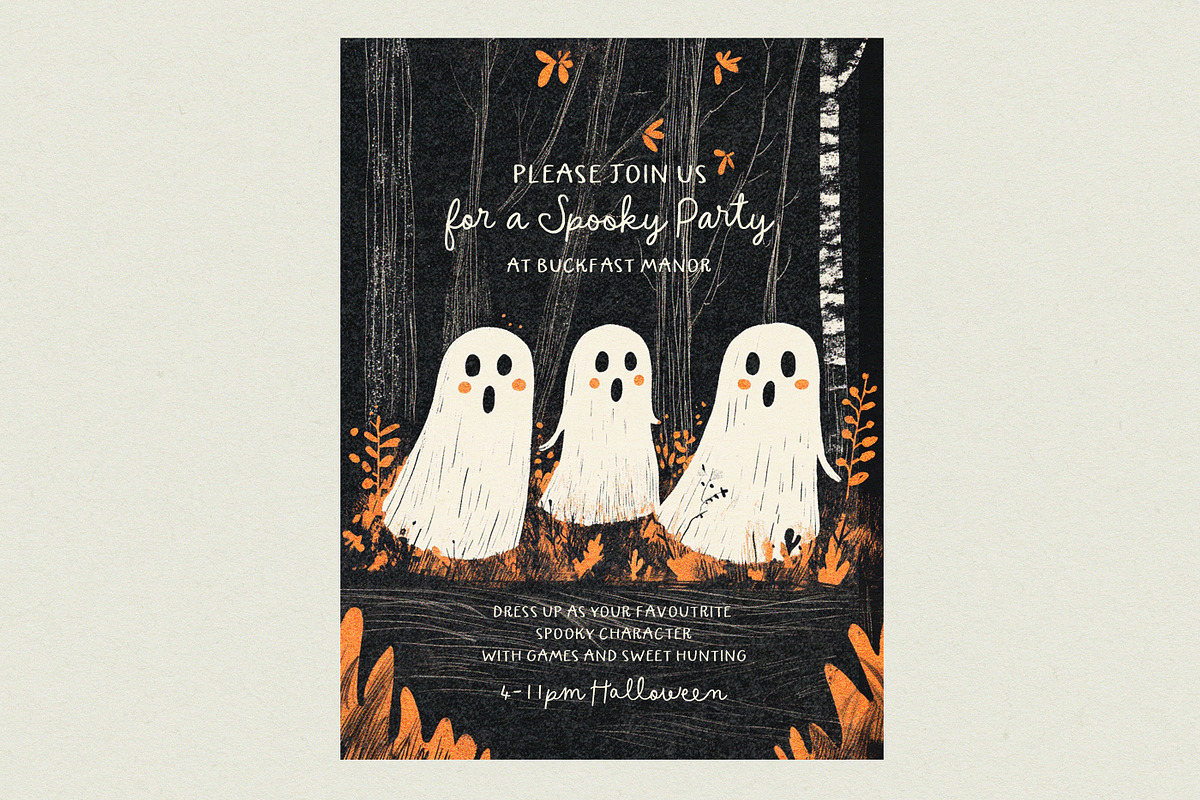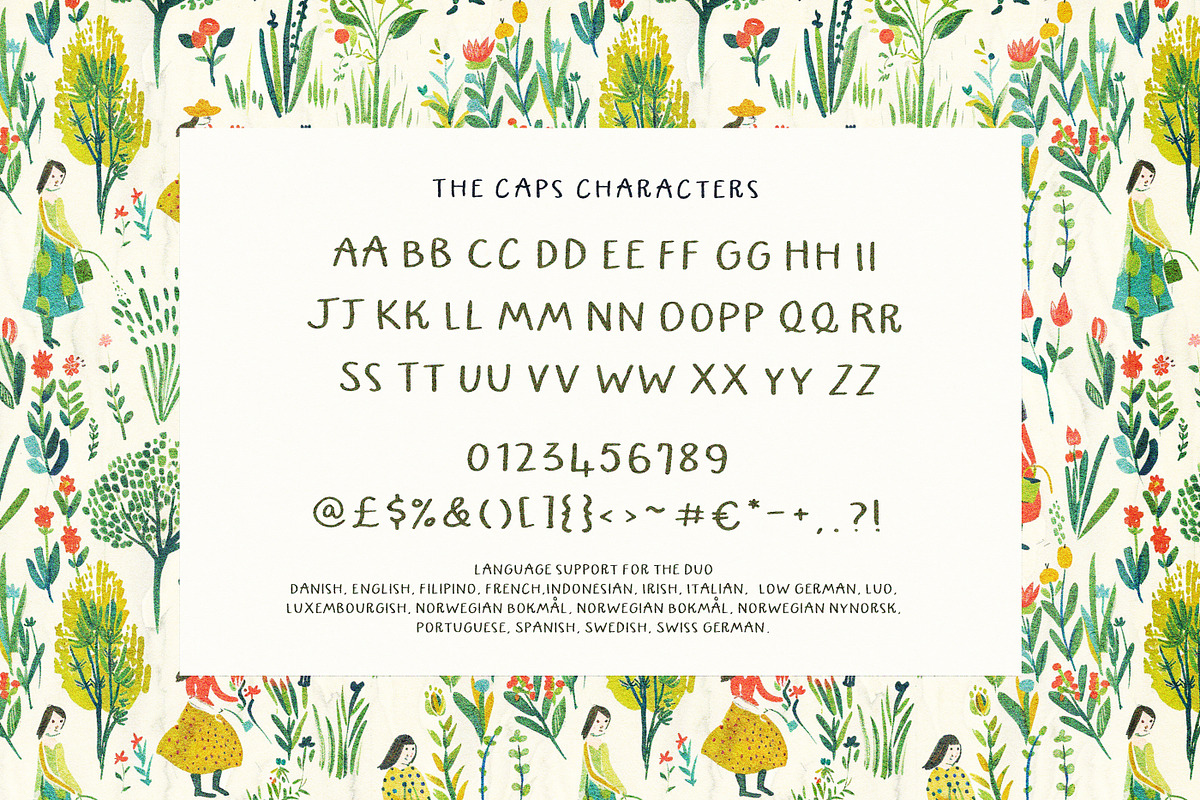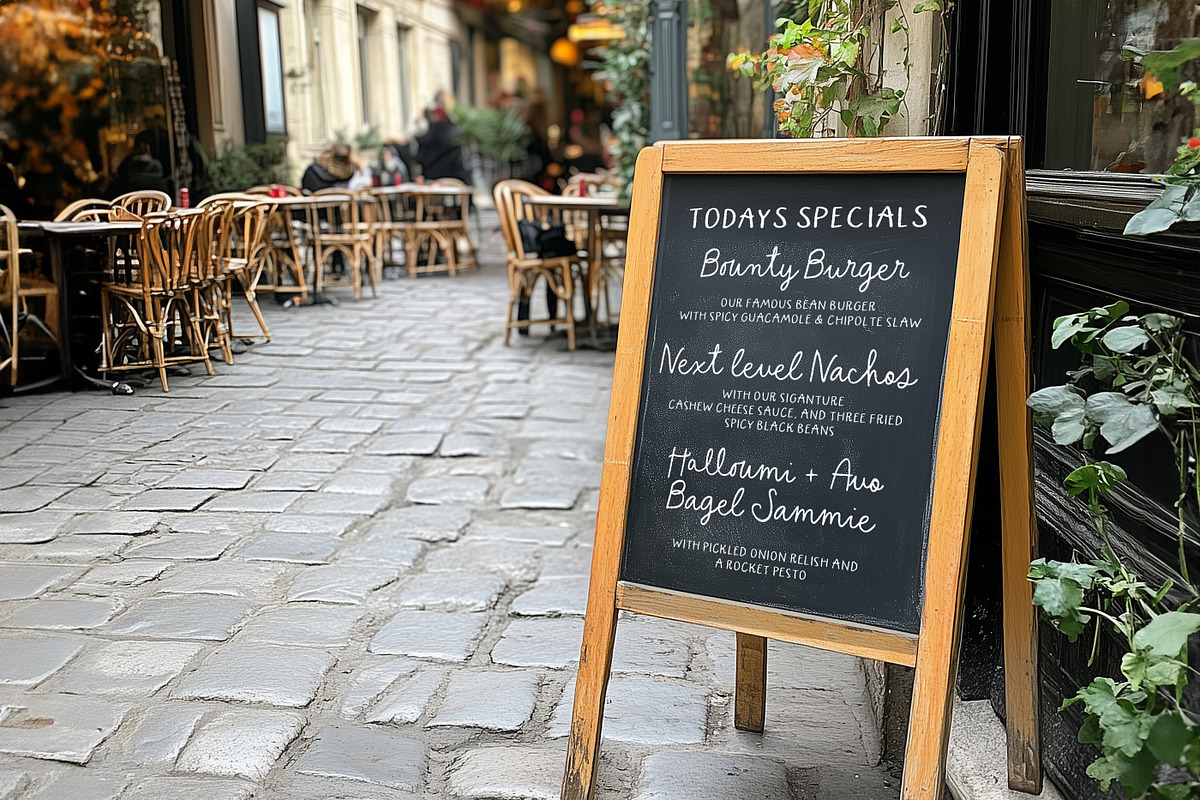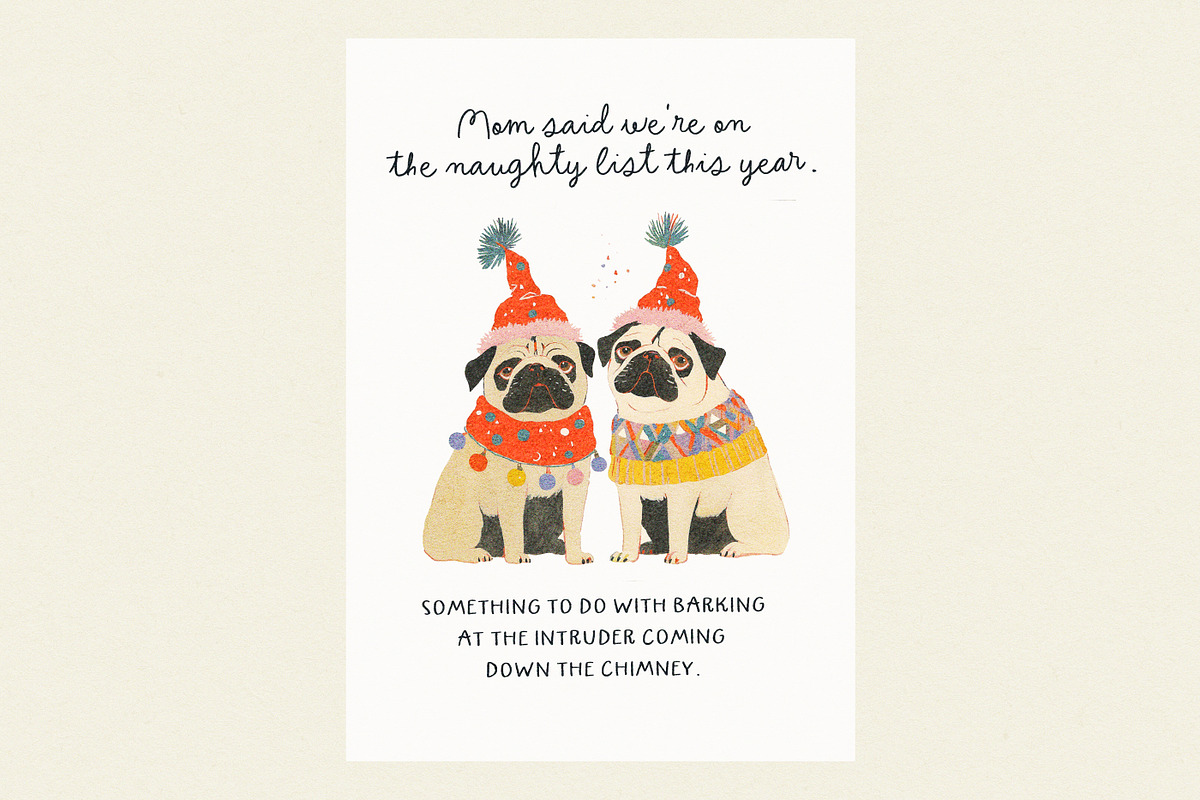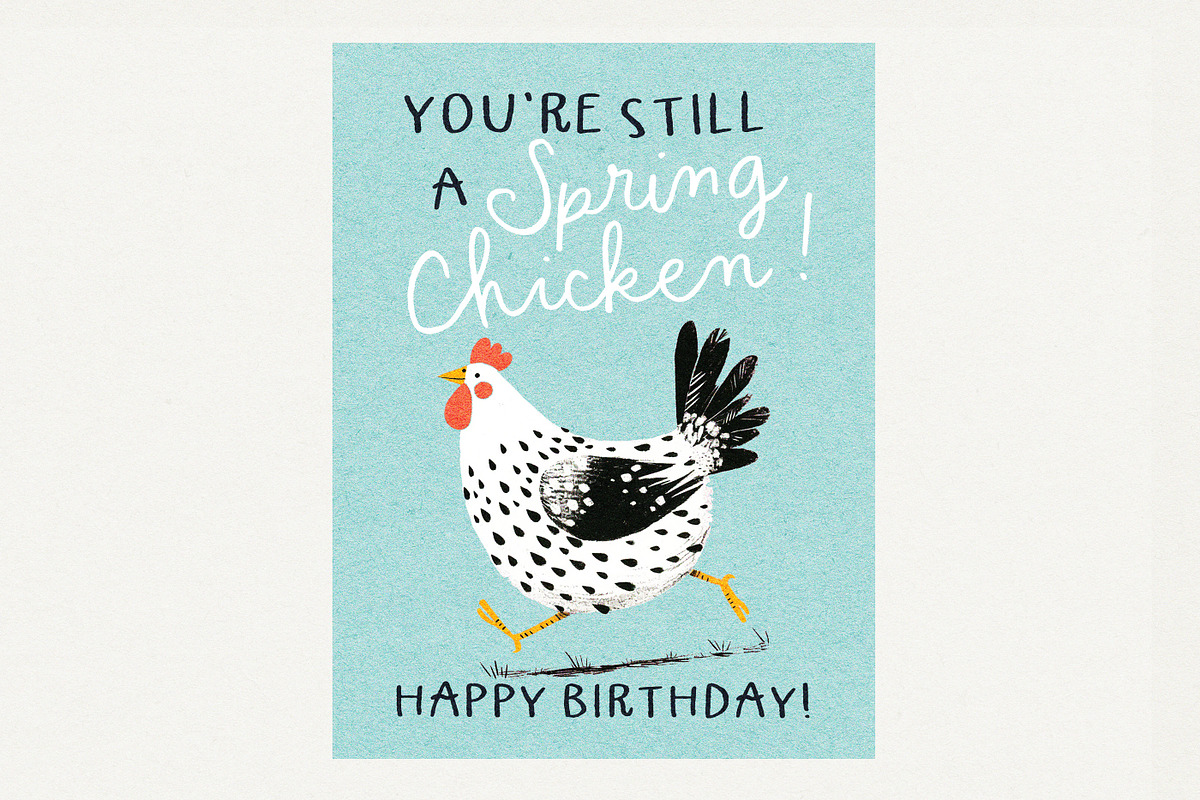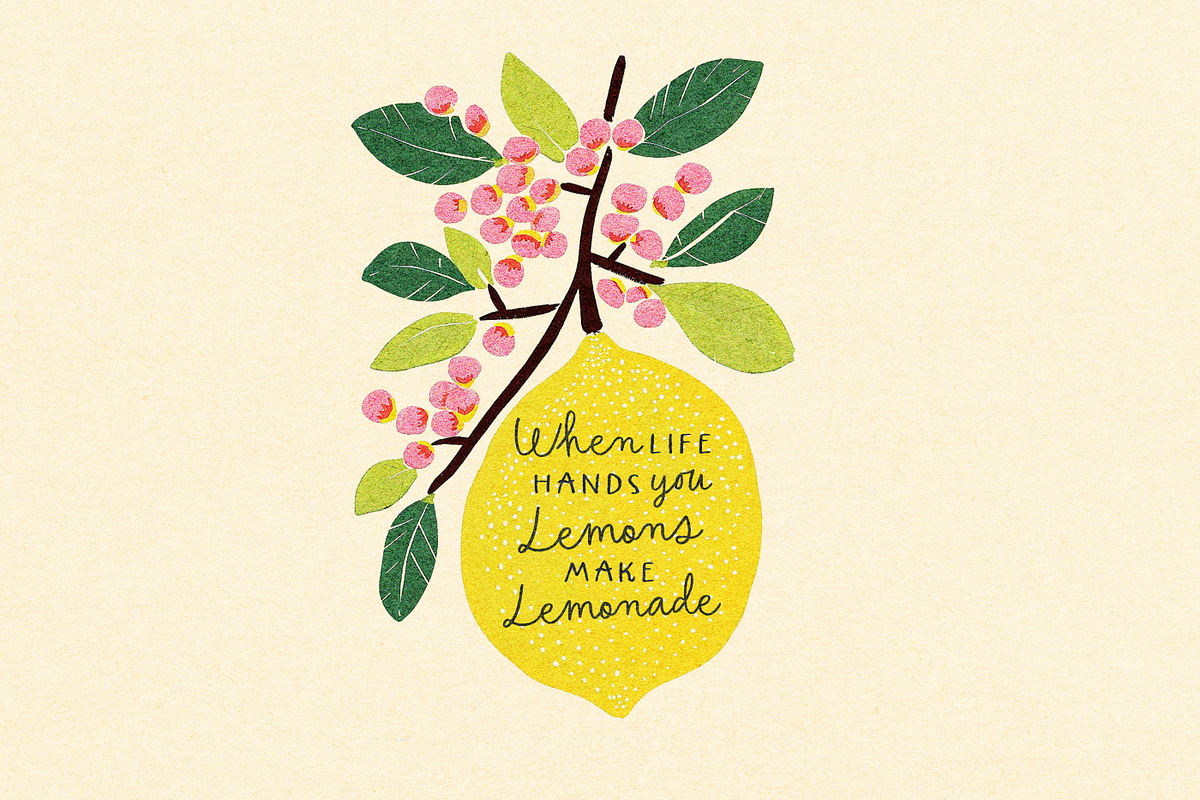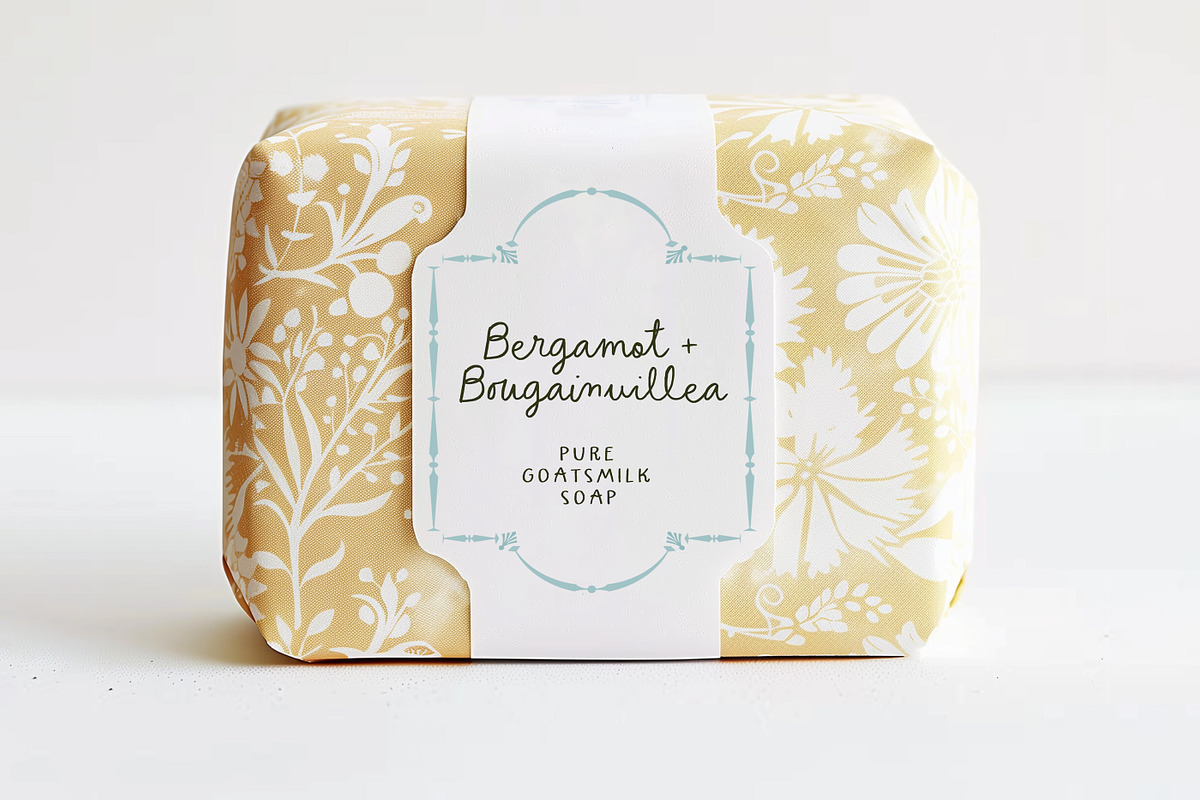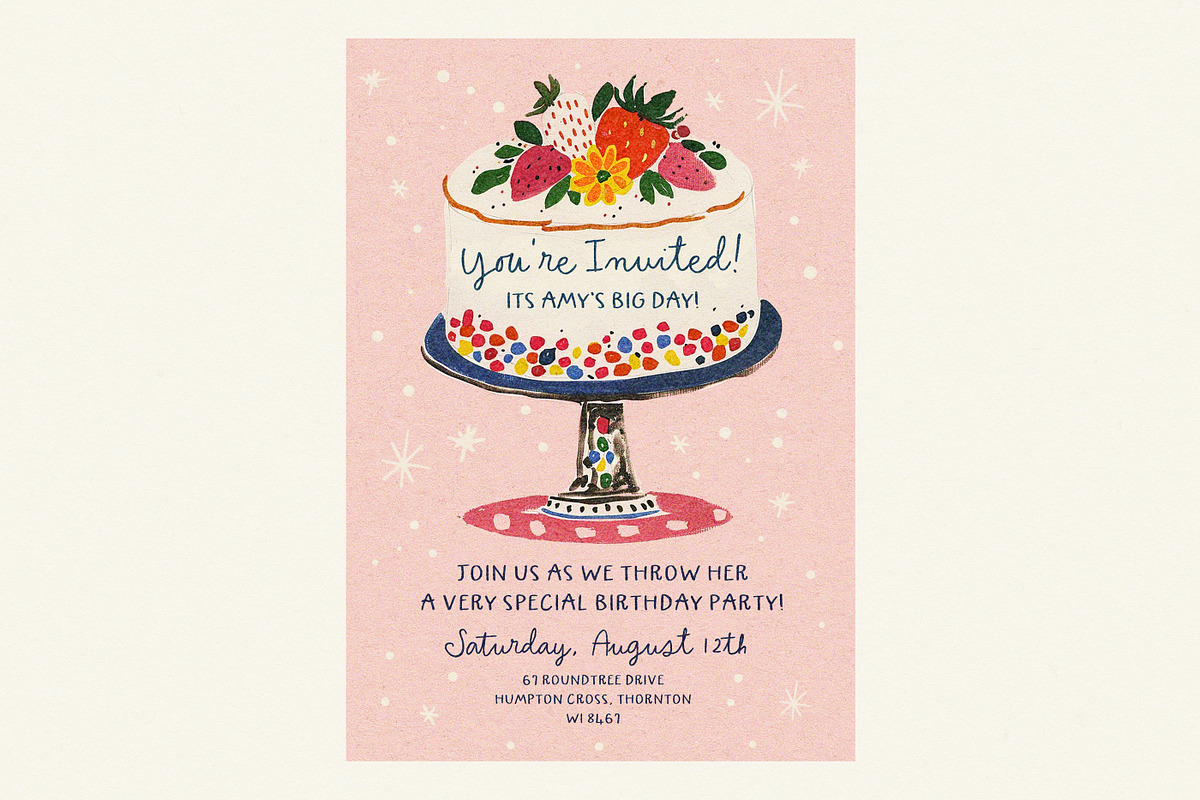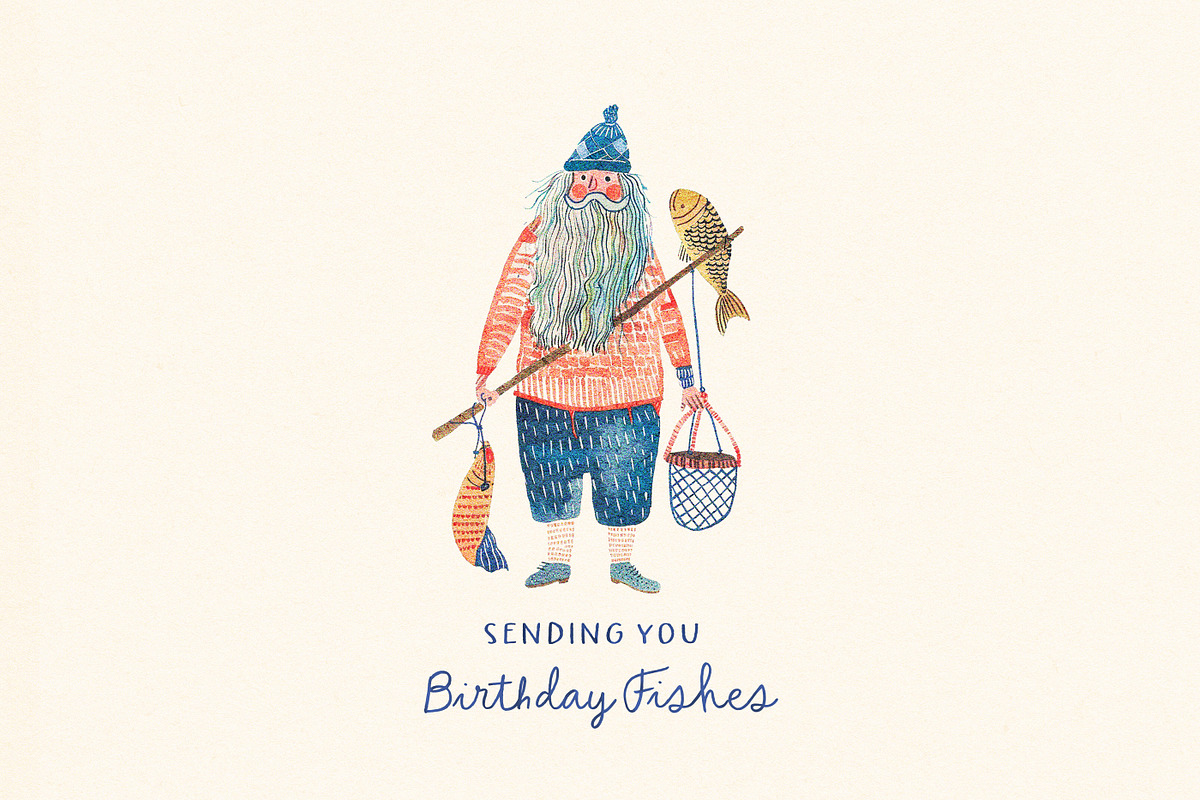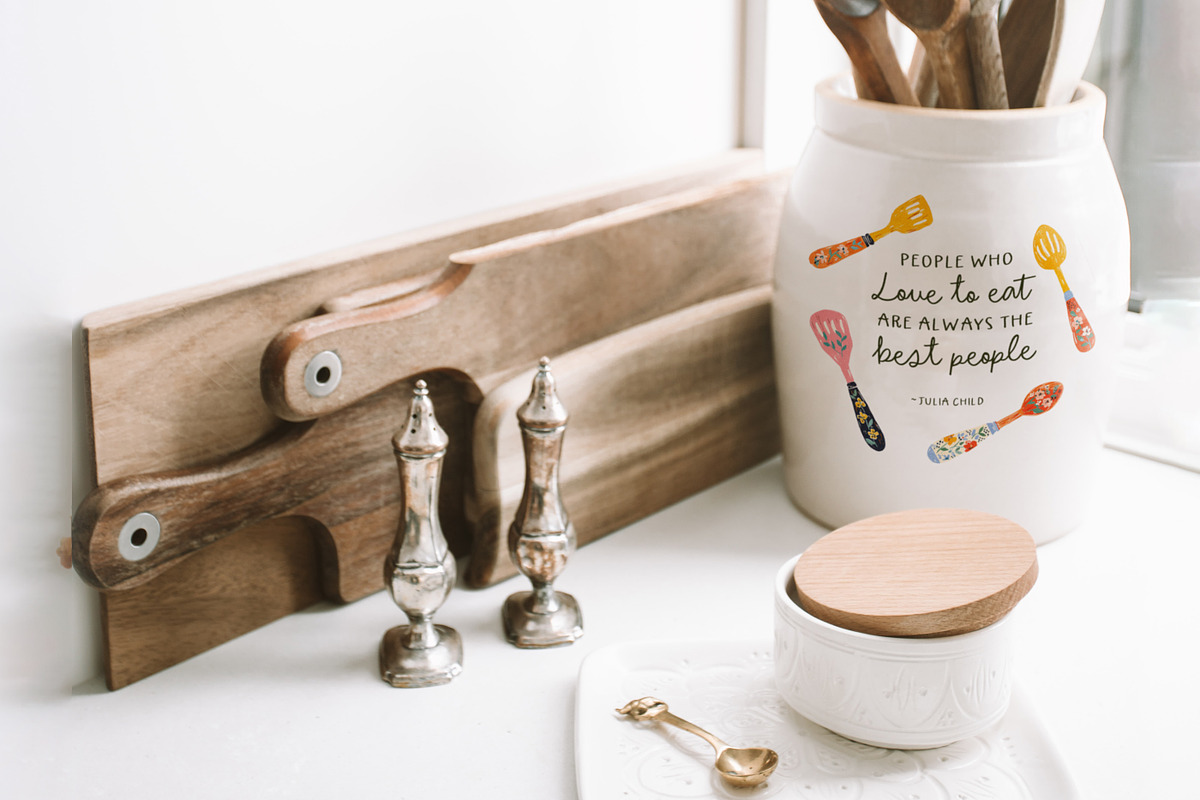
Sweet by Nature Font Duo
Say hello to 'Sweet by Nature'! A whimsical little font duo, with a playful little handwritten script, and a quirky caps to match :)
Make sure you turn on your Opentype Ligatures, designed to pop up as you type, and make the script font look even more natural. If you don't have any opentype capable software - no worries - it is PUA encoded, meaning you can copy the ligatures from your Fontbook/Charmap to your type line :)
Perfect for greeting cards, sweet branding, quaint labels, quirky weddings, illustrative works, quotes and so much more :)
Language support is :
Danish, English, Filipino, French,Indonesian, Irish, Italian, Low German, Luo, Luxembourgish, Norwegian Bokmål, Norwegian Nynorsk, Portuguese, Spanish, Swedish, Swiss German.